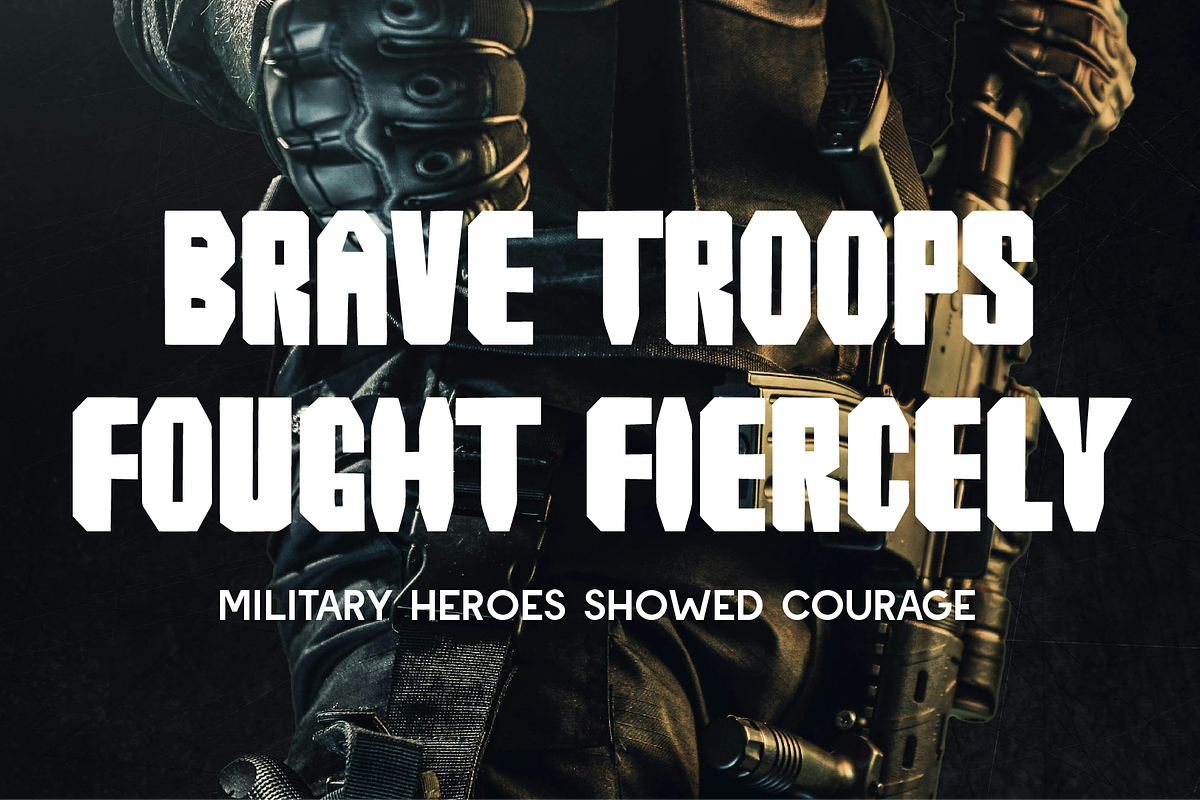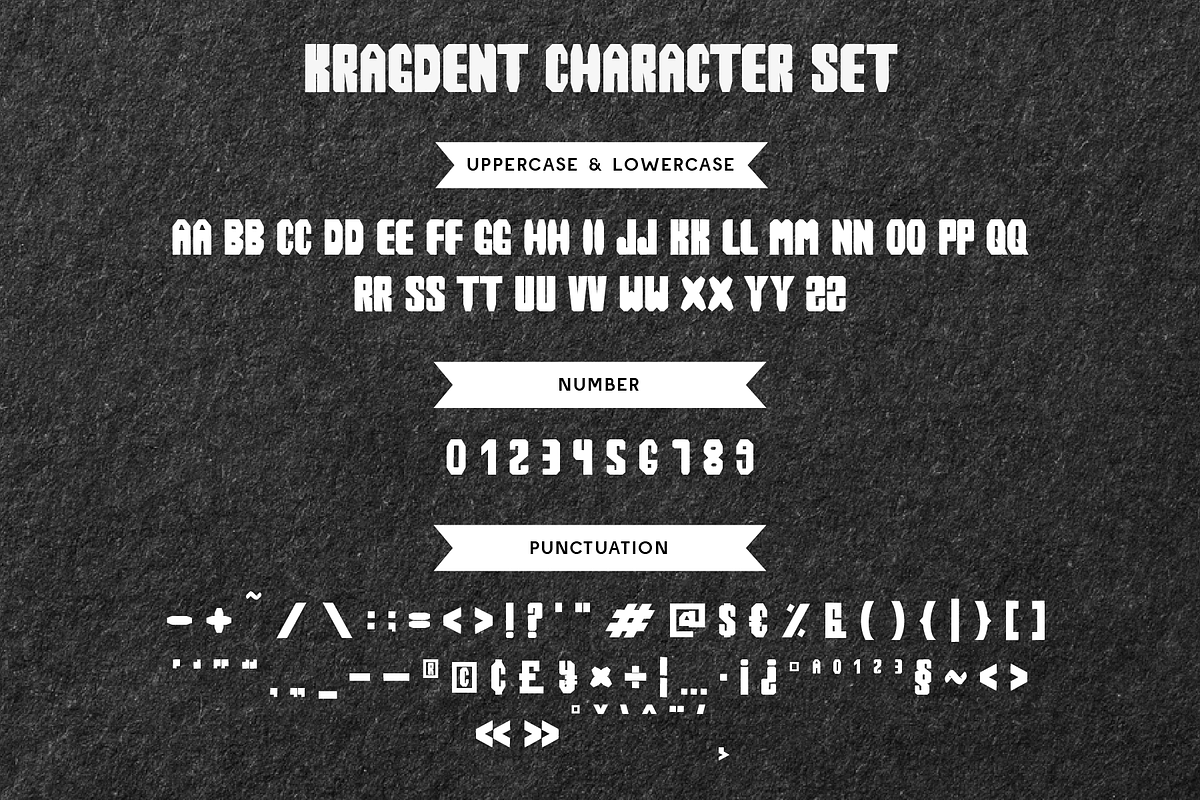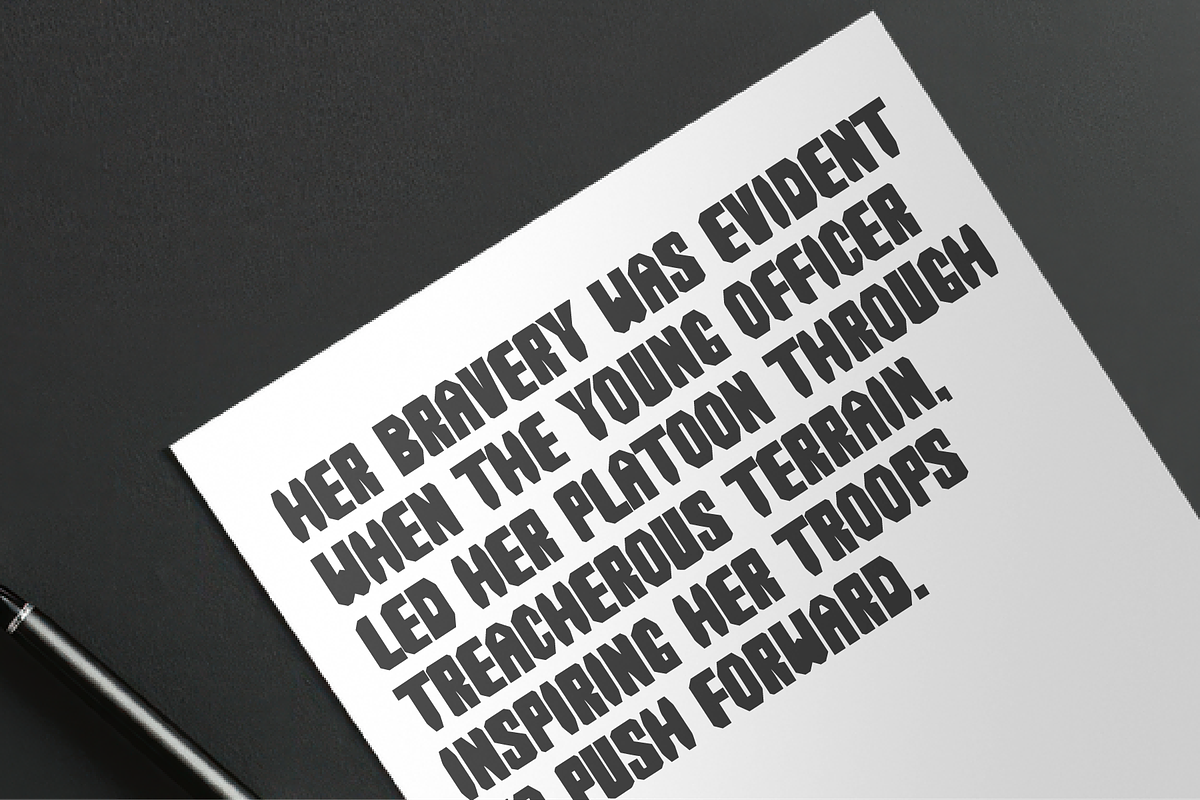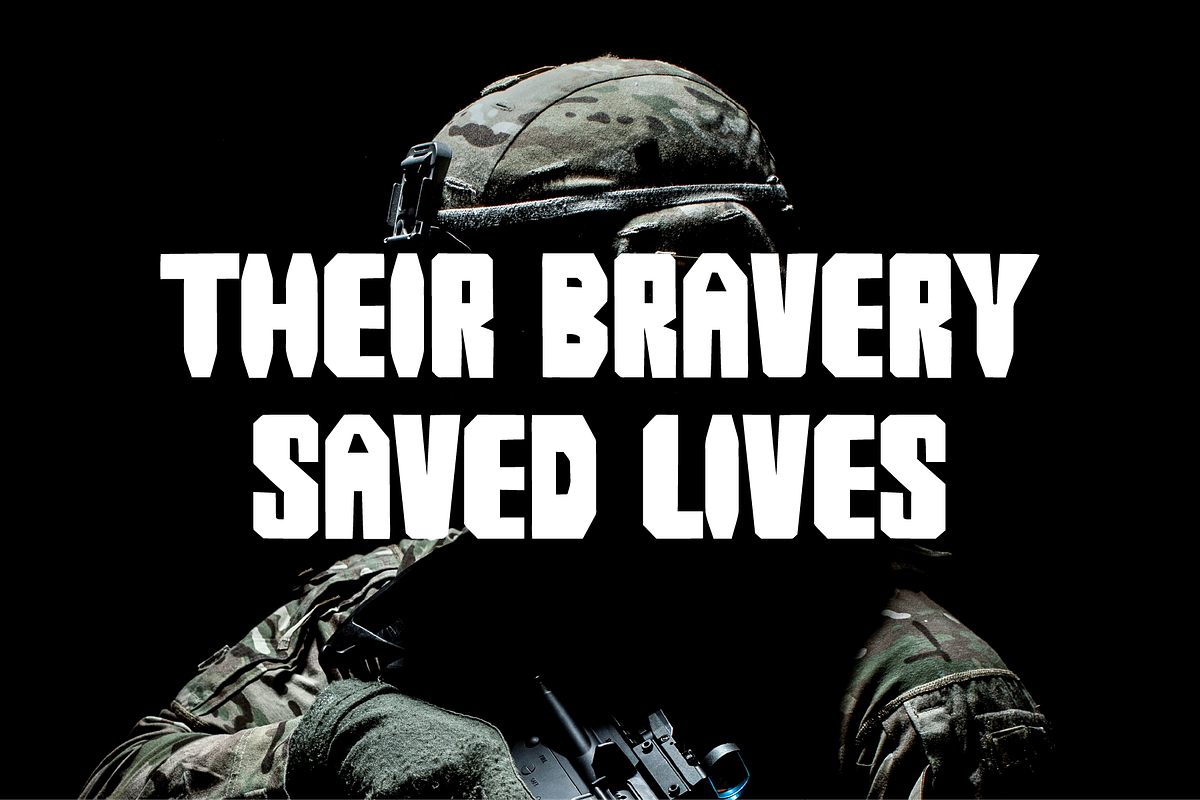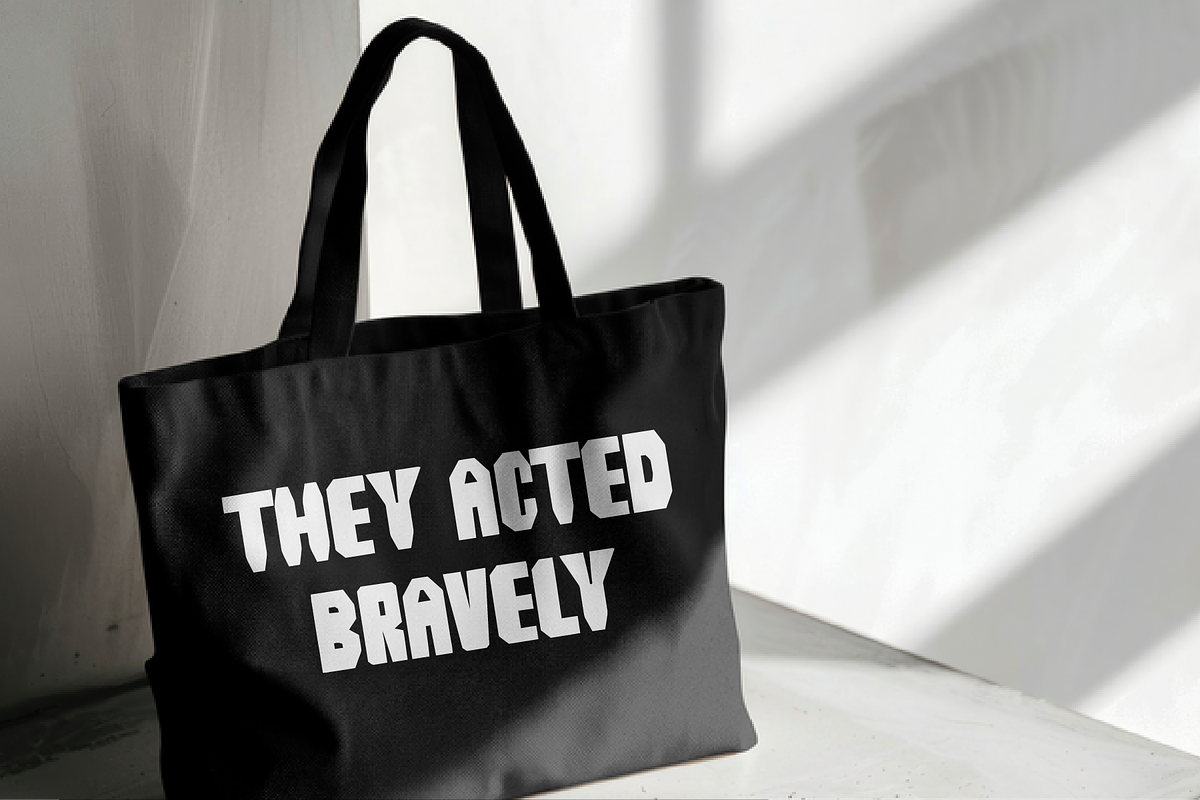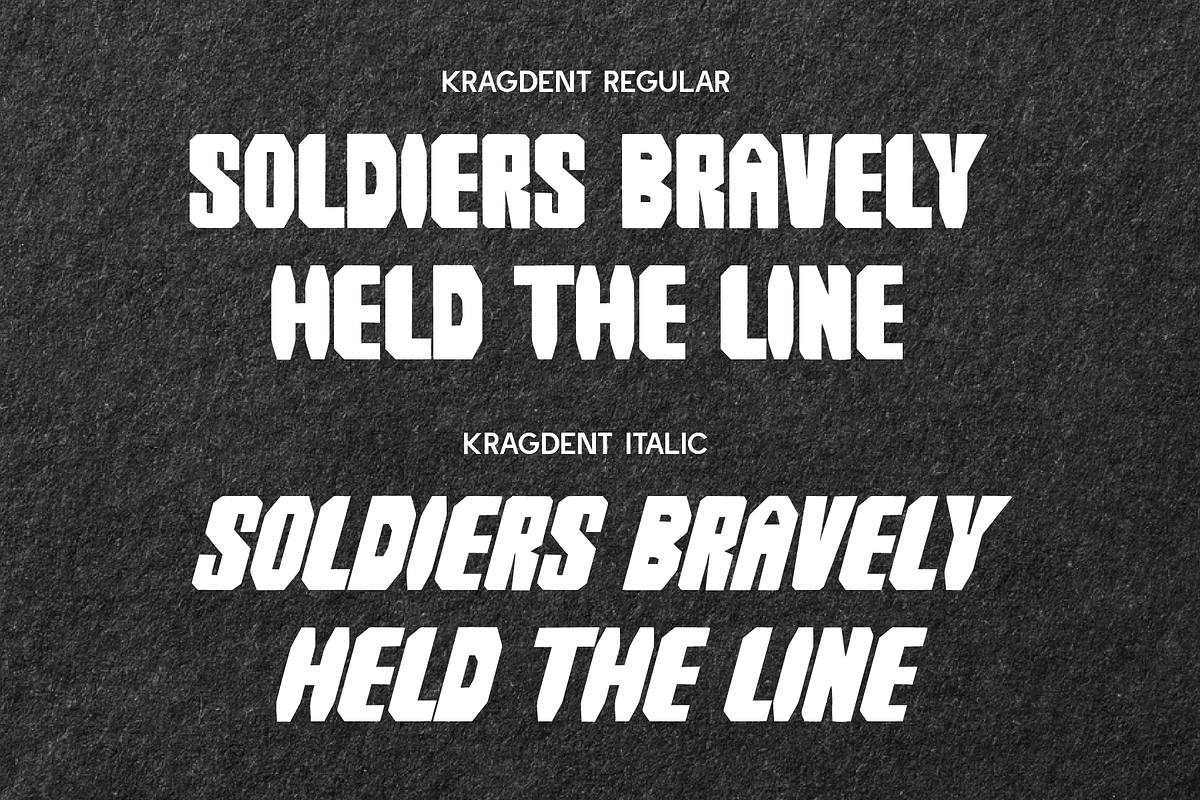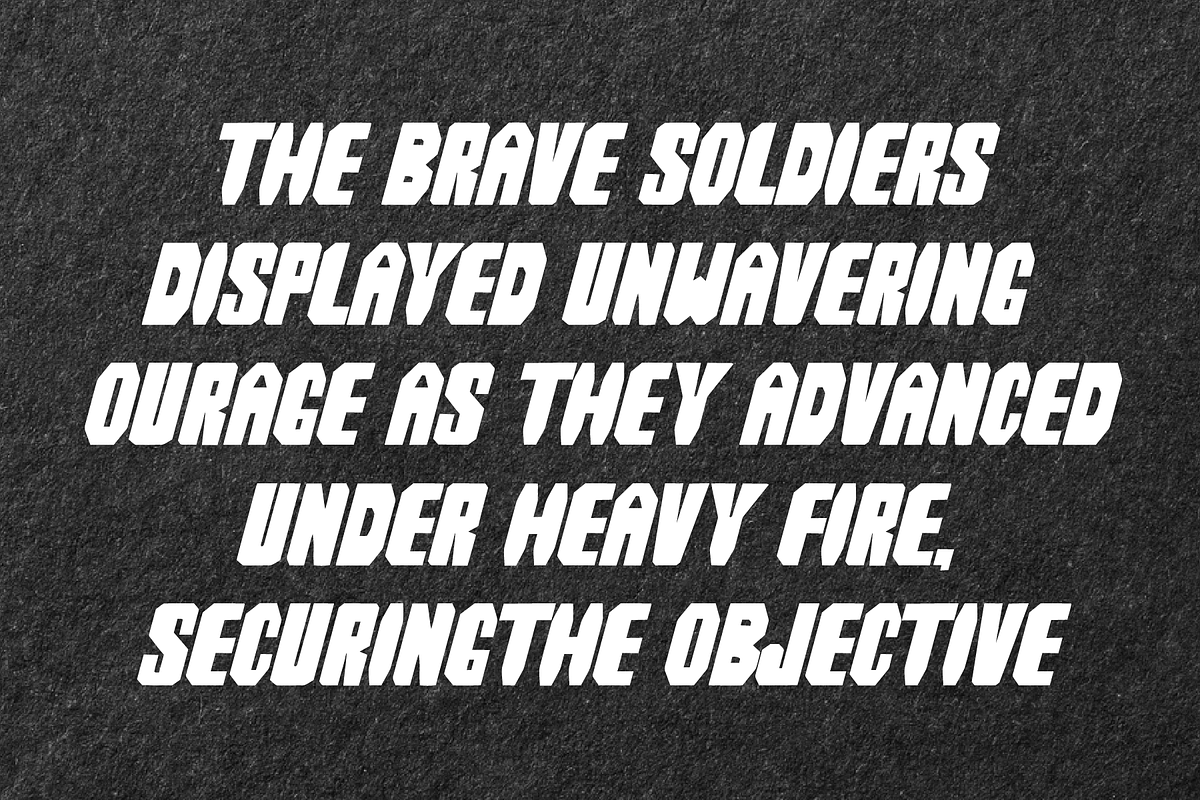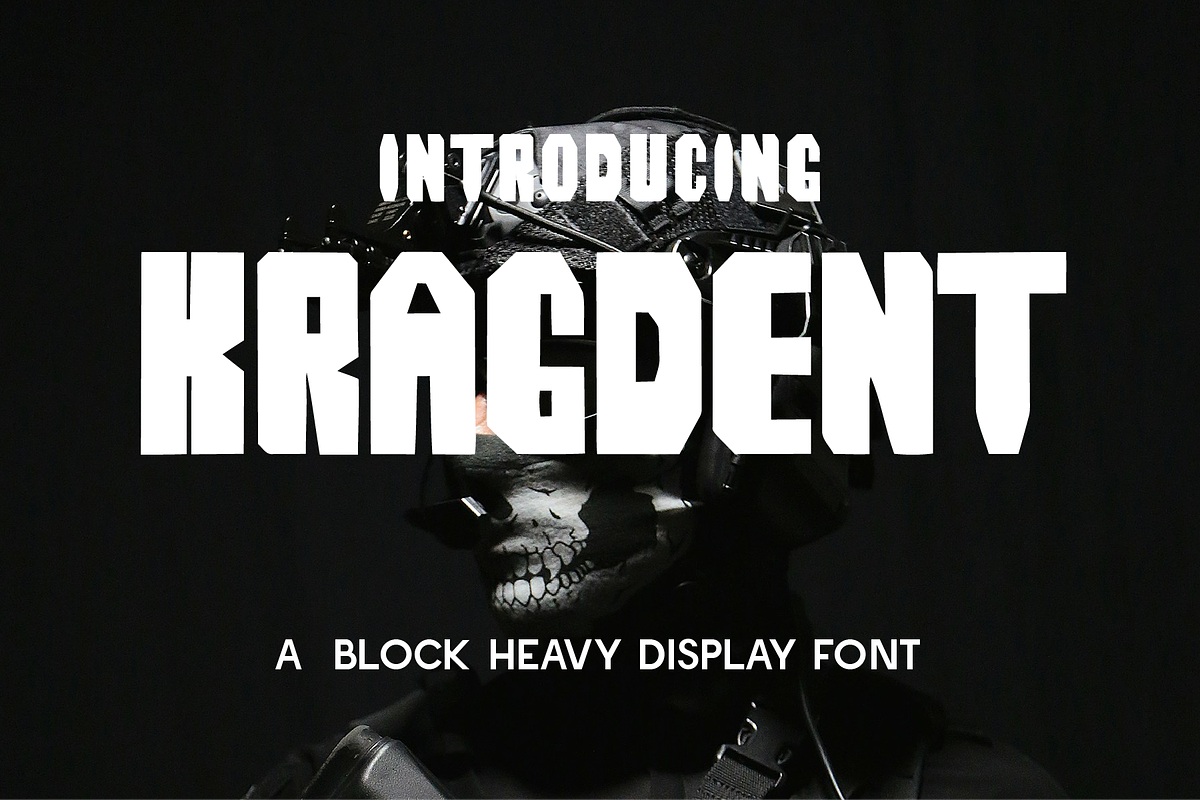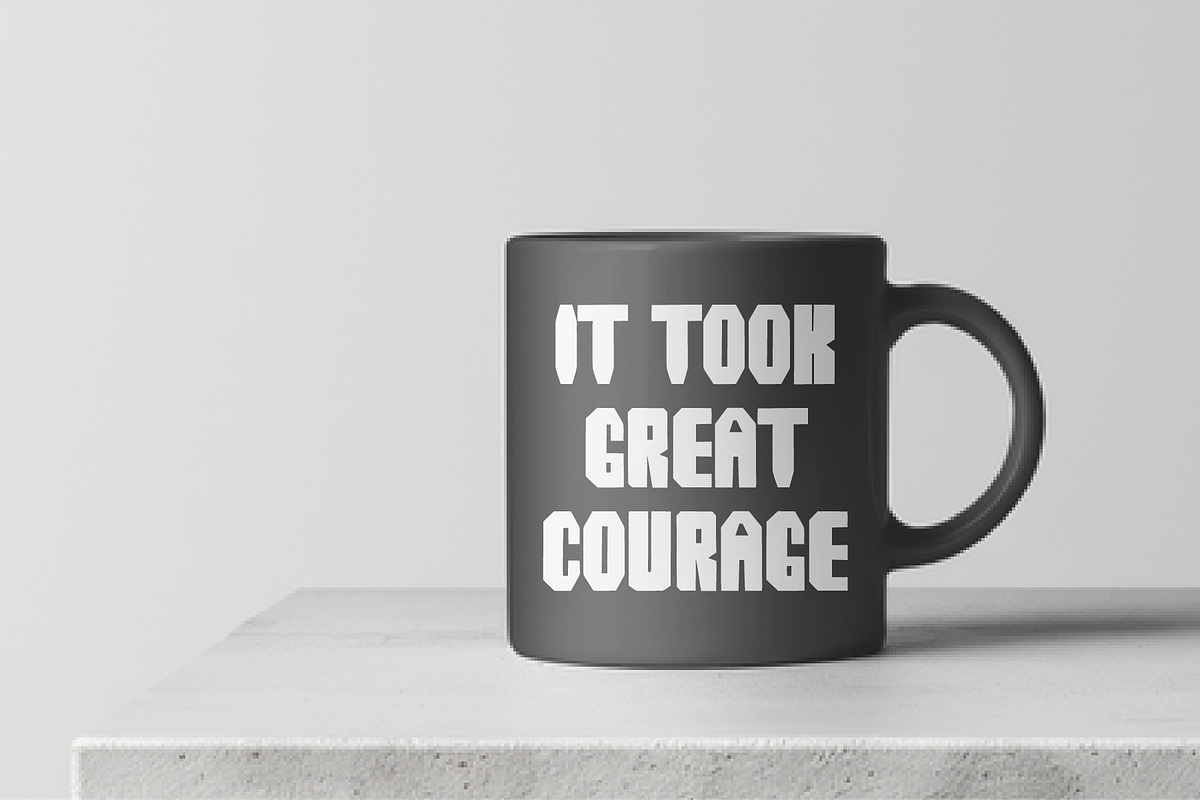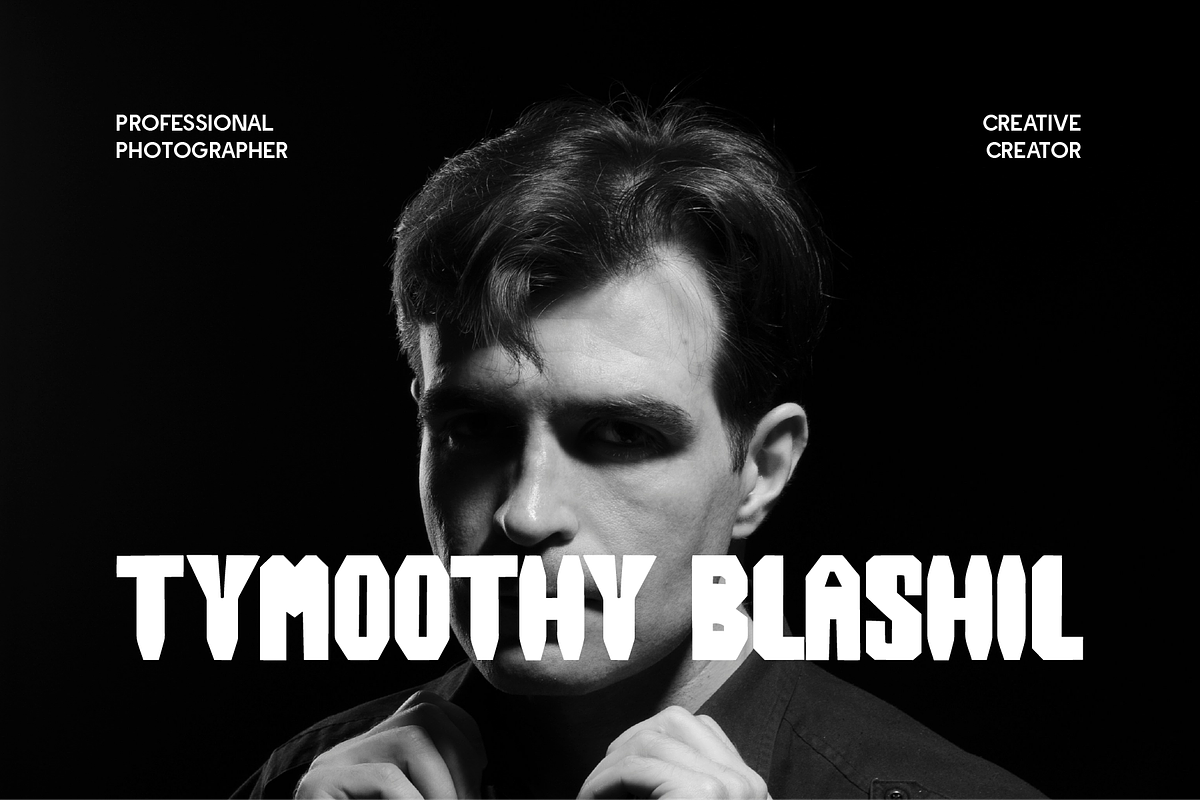
Kragdent - Block Heavy Display
Kragdent is a commanding block-heavy display font designed to make a bold, tactical impact. Its angular, armored letterforms are built with brute strength and precision, making it an ideal choice for titles, esports branding, military themes, extreme sports, and anything requiring a powerful visual presence.
This all-caps typeface delivers a raw, aggressive energy with geometric cuts and tightly packed spacing. The forms are engineered for maximum presence and visibility, evoking themes of strength, grit, and resilience. Kragdent thrives in hostile and high-intensity contexts—whether it’s on a poster, banner, game interface, or bold logo.
Why You Should Choose Kragdent :
⚖️ All caps design with consistent weight and visual balance 🏭 Blocky architecture with sharp cuts and angular corners 👓 Excellent legibility at large sizes 🪖 Ideal for military, tech, gaming, or industrial aesthetics 🧳 Works great in titles, signage, apparel graphics, packaging, and posters
Kragdent includes a standard Latin uppercase character set, numbers, and essential punctuation marks, ensuring wide usability across design projects. Perfect for branding esports teams, action-themed movie posters, tactical gear packaging, combat or survival game UI, and tech-mechanical logos.